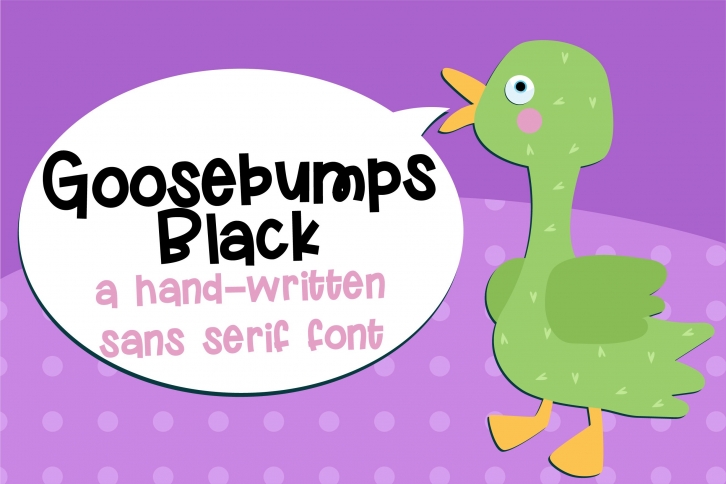
PN Goosebumps is a gorgeous font that was realeased on January 3, 2022. The font can be used in many style contexts and design environments. Perfect for invitations, magazines, websites, logos, and more! It was designed by Illustration Ink and the file size is 8.34 MB. Thanks for checking out this font!